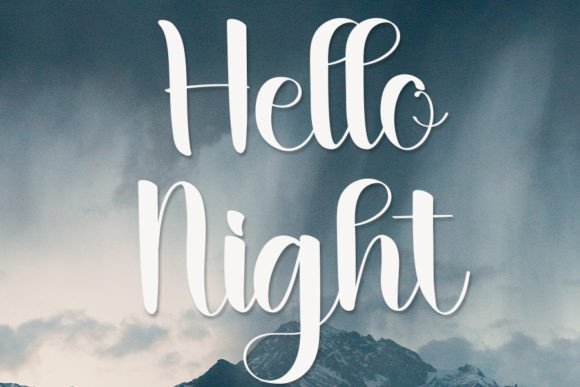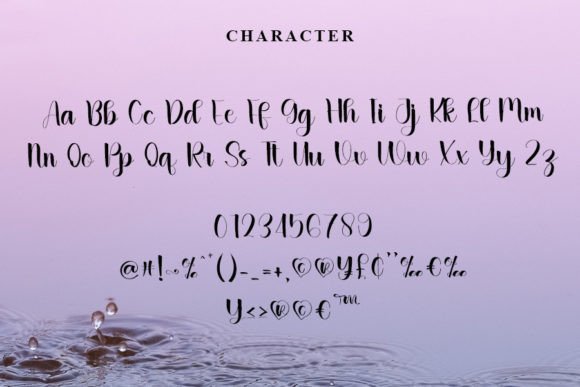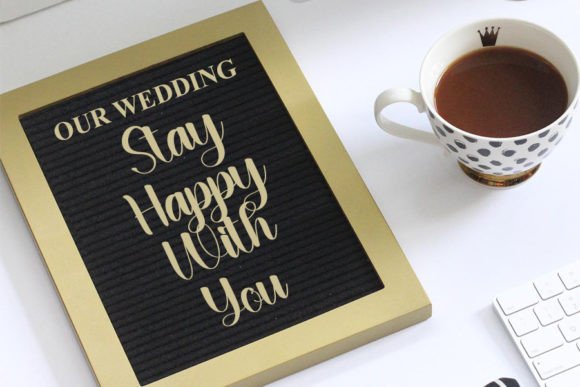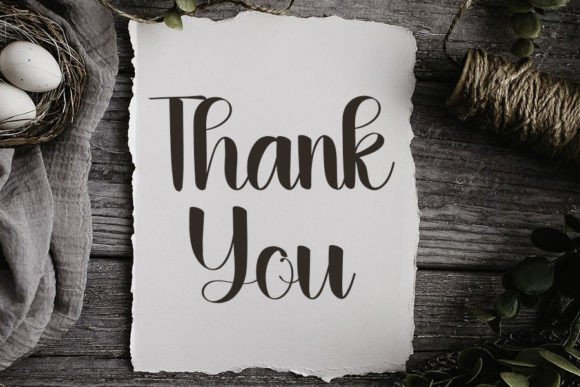
Introduction to Rain Always Font
Have you ever been in the middle of a creative project, pouring your heart and soul into it, only to feel like something’s missing? You’ve got the perfect color palette, the right images, but the text just doesn’t seem to be tying everything together? That’s where a high-quality font like Rain Always Font comes in.
This trendy handwritten font exudes a contemporary atmosphere and impeccable form, making it the perfect addition to any design project. Its timeless classic calligraphy inspiration ensures that it will never go out of style, providing a level of sophistication and elegance that’s hard to find in other fonts.
With its versatility and class, Rain Always Font is a valuable resource for designers looking to elevate their creative projects and make them truly stand out. Whether you’re working on a logo, a brochure, or a website, this font is sure to add a touch of sophistication and class that will leave a lasting impression on your audience.
Key Features of Rain Always Font
- High-quality design resource with a unique, creative style suitable for various projects
- Includes multiple weights and styles, providing designers with flexibility to customize their design according to their needs
Honest Review: Rain Always Font
As a designer, I’m always on the lookout for high-quality design resources to elevate my creative projects. The Rain Always Font caught my attention, and I decided to give it a try.
What works well: ✨ The font is beautifully crafted, with a unique and modern design that’s perfect for contemporary projects. The transparent background makes it easy to use on a variety of backgrounds, and the free download option is a big plus. I also appreciate the high-quality design, which ensures that my projects look professional and polished.
What doesn’t: ⚠️ While the font is great, I do wish it had more variations or styles to choose from. Currently, it’s a single font with a limited number of weights, which might limit its use in certain projects.
Overall impression: I’m really impressed with the Rain Always Font, and I think it’s a great addition to any designer’s toolkit. It’s perfect for creative projects that require a modern and stylish touch. With a little more variation, it could be even more versatile, but for now, it’s a solid choice.
- Unique and modern design
How to Use Rain Always Font
The Rain Always Font is a high-quality, free download design resource perfect for creative projects that require a touch of elegance and sophistication. With a transparent background, this font is ideal for designers who want to add a unique touch to their designs.
Getting the Most Out of Rain Always Font
To get the most out of the Rain Always Font, use it in creative projects that require a unique touch. Some common use cases include:
The Rain Always Font is perfect for designers who want to add a touch of elegance and sophistication to their designs. It’s ideal for use in creative projects that require a unique touch, such as wedding invitations, business cards, and marketing materials.